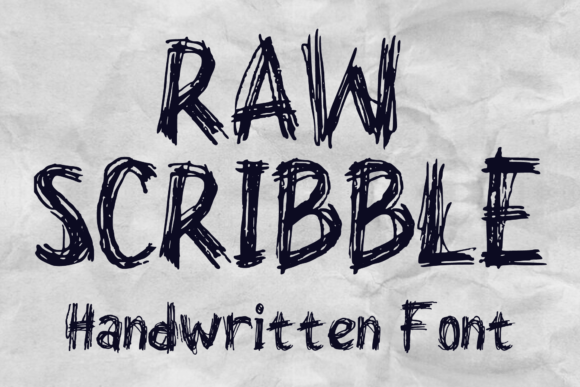
Raw Scribble: The Organic Handwritten Font
In a digital landscape often dominated by sleek, geometric sans-serifs and perfectly aligned grids, there is a growing hunger for imperfection. Raw Scribble answers this call as a distinctly organic handwritten font characterized by its spontaneous scribbled texture. It is not merely a typeface; it is a digital tool designed to inject the chaotic energy of human creativity into static layouts. Whether you are sketching ideas on a napkin or finalizing a brand identity, this font bridges the gap between raw thought and polished design.
Understanding the Aesthetic of Imperfection
At its core, Raw Scribble mimics the natural variance found in hand-drawn lettering. Unlike standard fonts that repeat identical characters, this typeface offers an iterable yet individualistic experience. Each letter carries the weight of a quick stroke, complete with varying line weights and uneven edges that suggest movement. This texture provides an assuredly creative boost to any project, ensuring that the text feels alive rather than manufactured.
The versatility of Raw Scribble lies in its ability to function across diverse mediums without losing its character. It works equally well when scaled down for a subtle footnote or blown up to dominate a poster. The font’s unrivalled flexibility allows designers to maintain a consistent visual language while avoiding the sterile look of automated typography. For anyone looking to craft an extraordinary personality in their designs, understanding how this texture interacts with other elements is the first step toward mastery.
For Beginners: Lowering the Barrier to Entry
For those just starting their design journey, Raw Scribble offers a unique advantage: it makes simple projects look intentional. Beginners often struggle with the pressure of creating "perfect" graphics. This font removes that burden by embracing the rough. If you are designing a personal blog header, a birthday invitation, or a social media graphic, using a font that looks hand-drawn can mask layout inconsistencies and add warmth instantly.
Beginners should prioritize ease of use and immediate visual impact. Raw Scribble delivers both. You do not need advanced kerning skills to make the text look good because the inherent irregularity of the letters creates its own rhythm. However, new users should be mindful of legibility. While the style is energetic, overusing it in long paragraphs can become difficult to read. The best approach for a novice is to use it for headlines, pull quotes, or short phrases where the personality of the font can shine without overwhelming the reader.
Professionals and Designers: Strategic Application
Experienced designers and professionals approach Raw Scribble with a focus on hierarchy and contrast. In a portfolio or a high-stakes branding project, the goal is often to guide the viewer's eye. Professionals might pair this chaotic script with a clean, structured serif or sans-serif font to create a dynamic tension. This combination signals that a brand is both grounded and innovative.
For the professional, the value proposition shifts from "making it look cool" to "solving a communication problem." When creating mind-catching logos or region-defining t-shirt graphics, the reliability of the font file and its compatibility with vector software are paramount. Raw Scribble reinforces a superior edge to creative expressions by allowing for precise manipulation of strokes. A designer might stretch or distort specific glyphs to fit a unique shape, knowing the organic nature of the font will absorb these changes naturally. The priority here is flexibility and commercial viability—ensuring the design scales correctly from a business card to a billboard.
Entrepreneurs and Small Business Owners: Building Identity
Small business owners and entrepreneurs often wear many hats, including marketing and design. For them, time is a critical resource. Raw Scribble serves as a cost-effective solution to establish a distinct brand voice without hiring a custom typographer. A local coffee shop, an artisanal bakery, or a boutique clothing store can use this font to communicate a "made by hand" ethos that resonates with their customer base.
The decision-making process for this audience revolves around presentation and long-term usefulness. They need a font that looks expensive but is affordable to implement. By using Raw Scribble for decal designs on storefront windows or for charismatic cartoon imagery on packaging, a small business can differentiate itself from corporate competitors. The key is consistency; once chosen, the font becomes part of the brand's DNA, appearing on everything from invoices to Instagram stories, reinforcing trust and recognition.
Educators and Content Creators: Engaging Audiences
Teachers, bloggers, and content creators operate in environments where attention is scarce. Raw Scribble offers a way to break the monotony of standard educational materials or article formatting. In an online course or a magazine cover, a handwritten font can feel more like a conversation with a friend than a lecture from an institution.